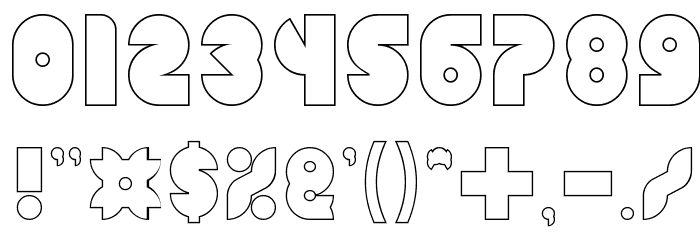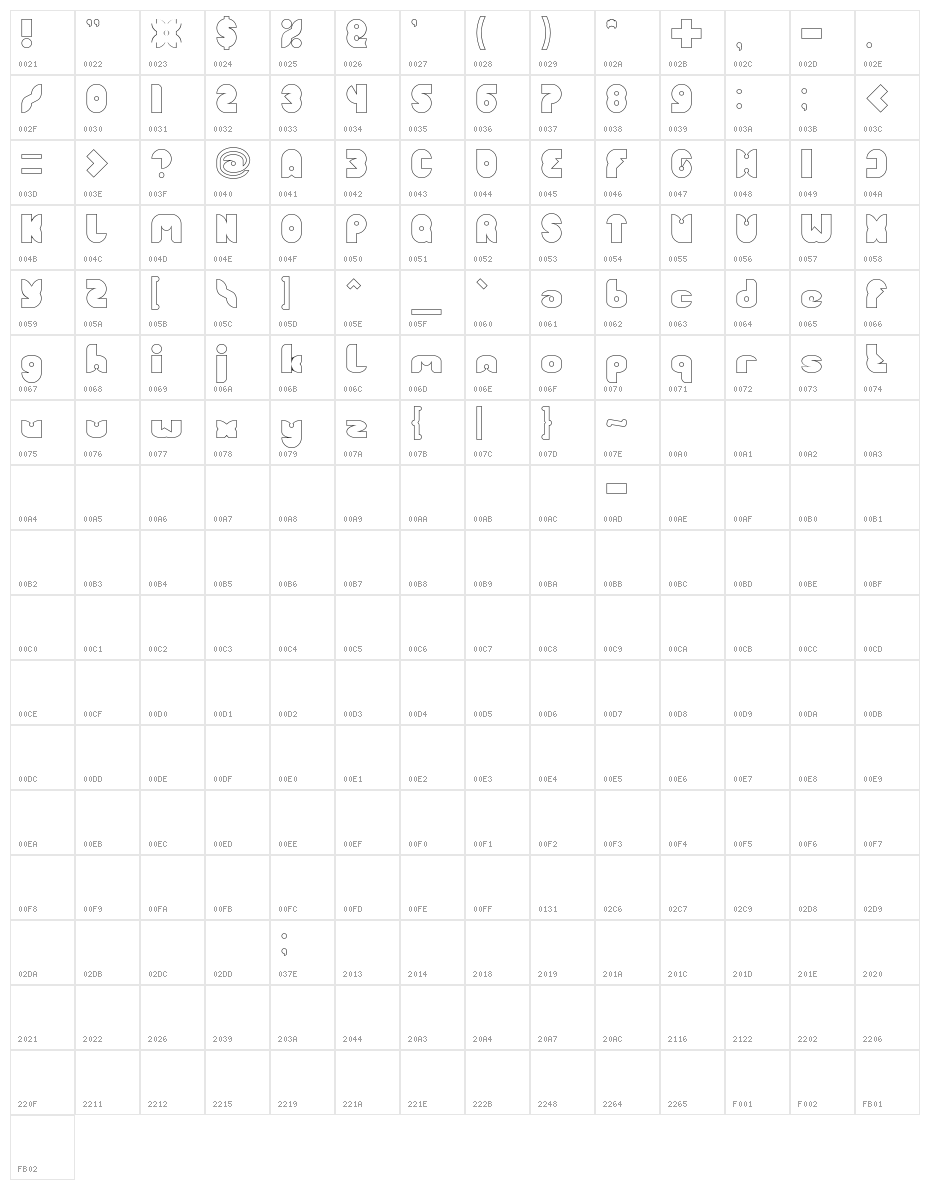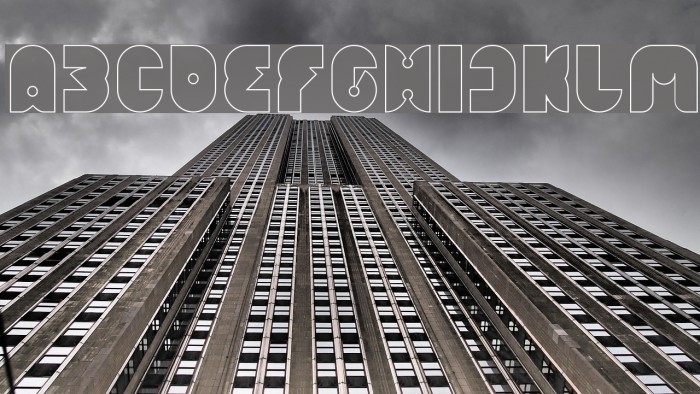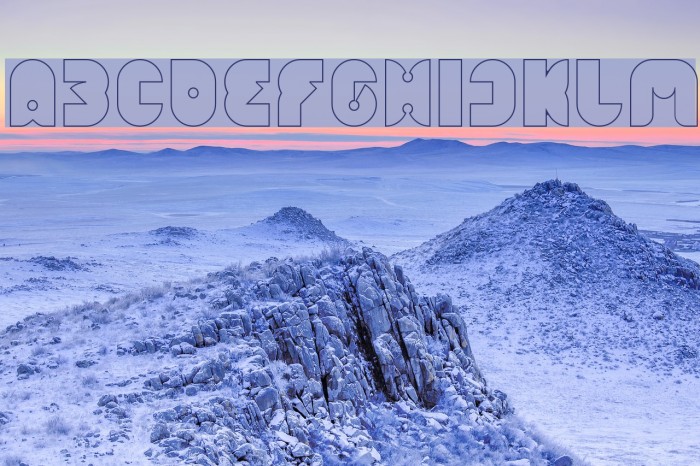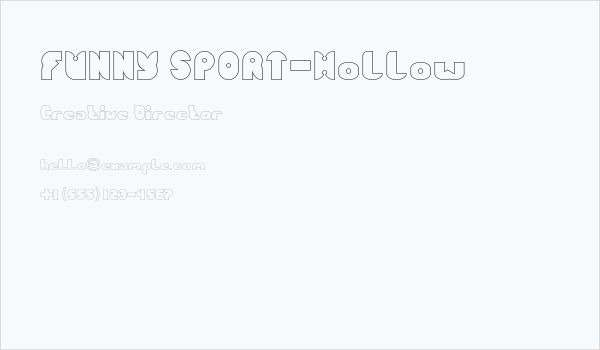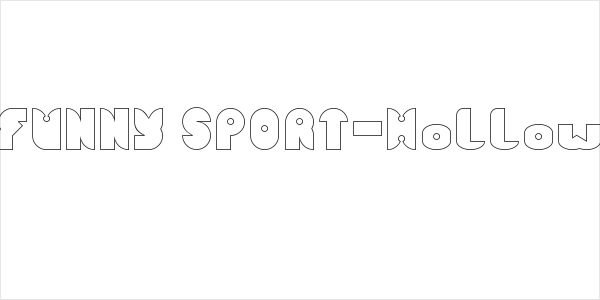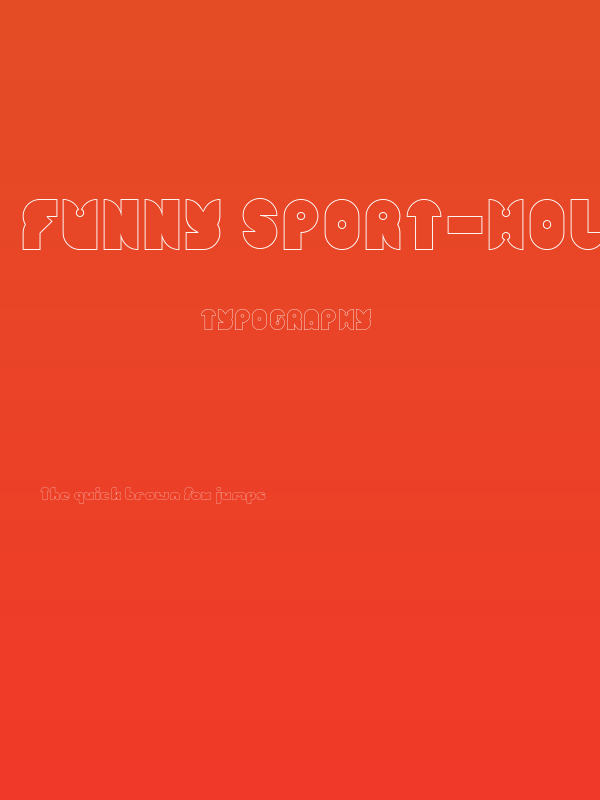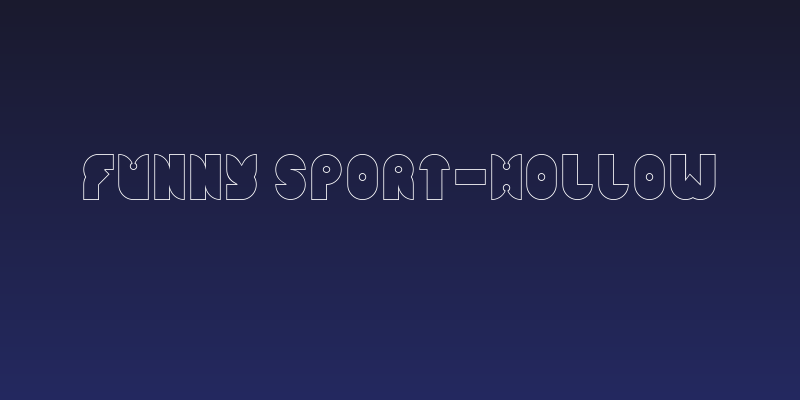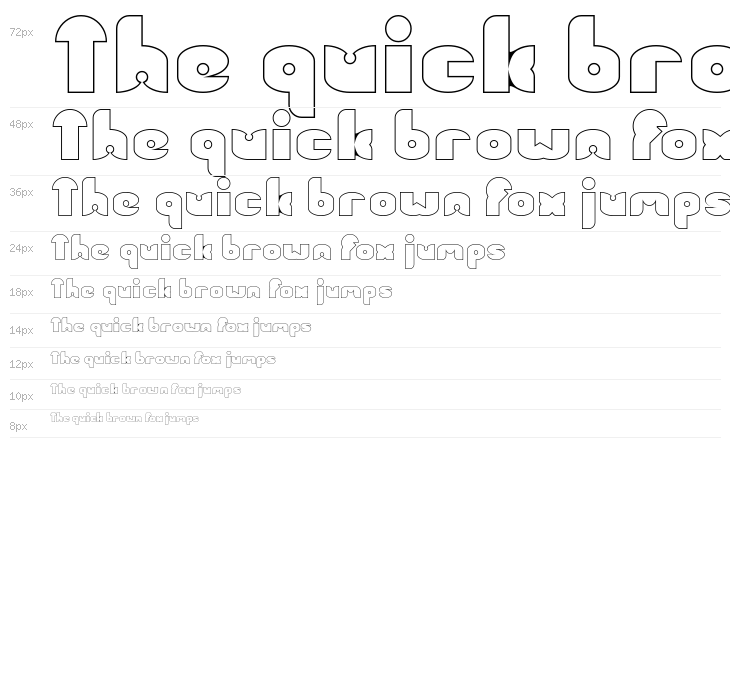
FUNNY SPORT-Hollow Font
FUNNY SPORT-Hollow Description
This playful and bold font features a hollow design with thick outlines, giving it a unique and eye-catching appearance. The characters are rounded and geometric, with a consistent stroke width that maintains uniformity across the alphabet. The uppercase and lowercase letters share a similar style, enhancing the cohesive look. Numbers and special characters are designed with the same hollow effect, making them stand out. This font is ideal for projects that require a fun and engaging visual element, such as children's books, posters, or playful branding. Its distinctive style ensures that it captures attention while remaining legible.
| Overall Style | Playful, Modern |
| Proposed Projects | Ideal for children's books, playful branding, posters, and eye-catching designs. |